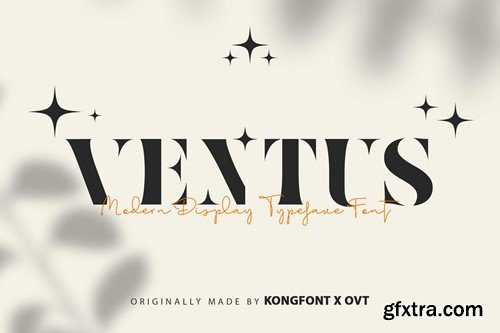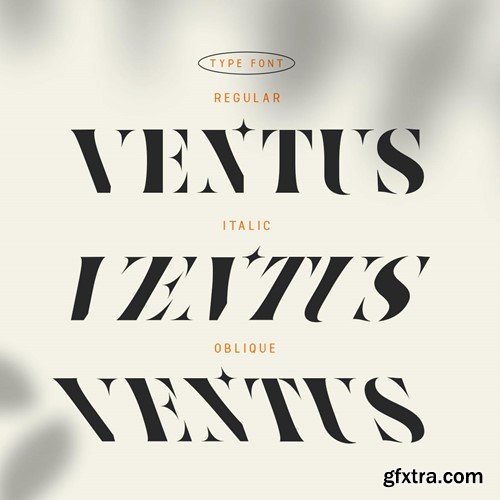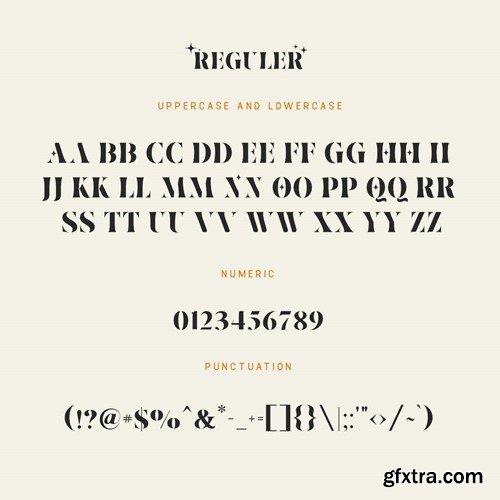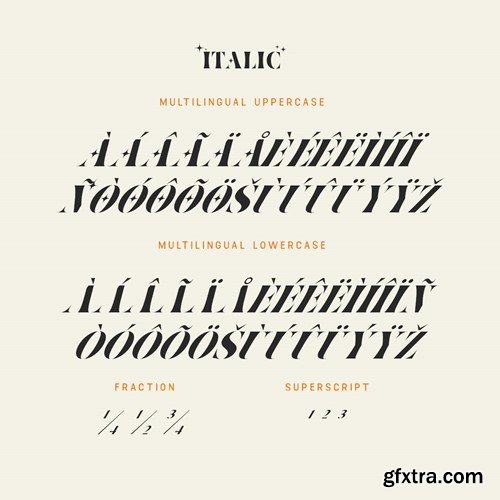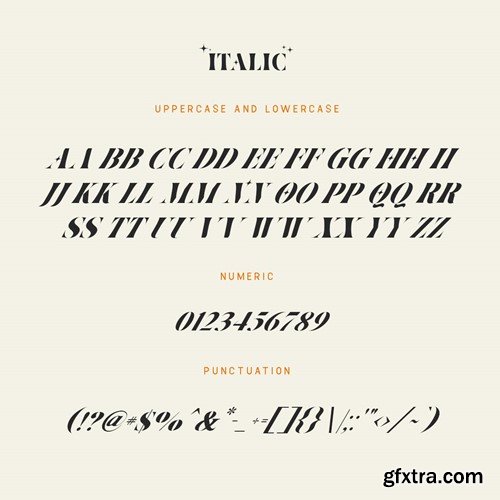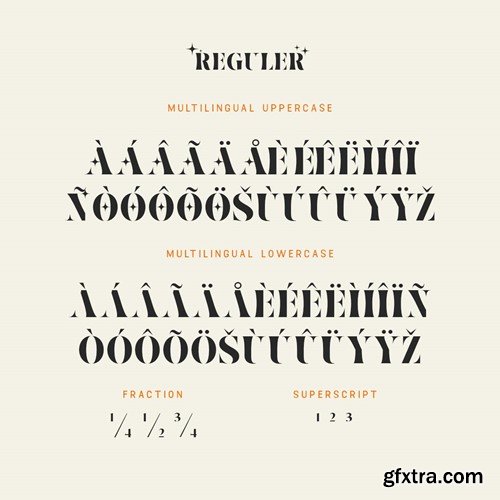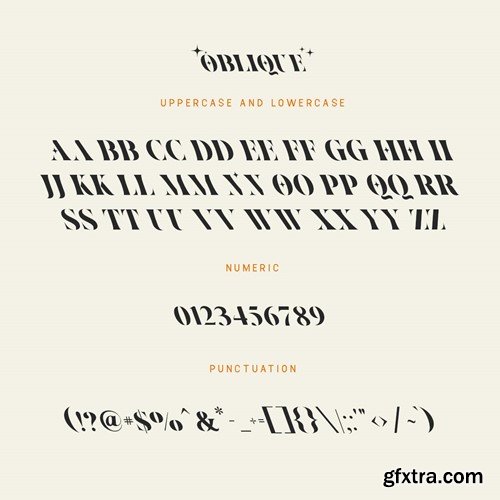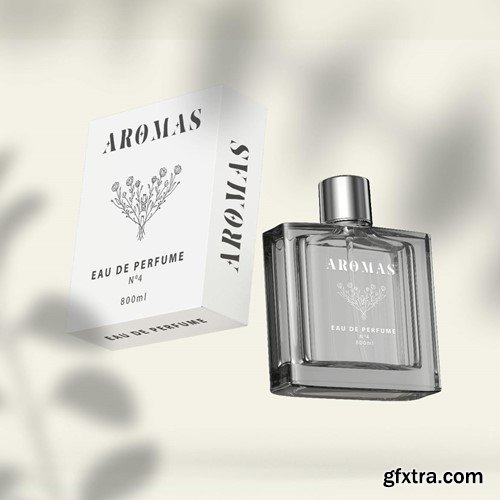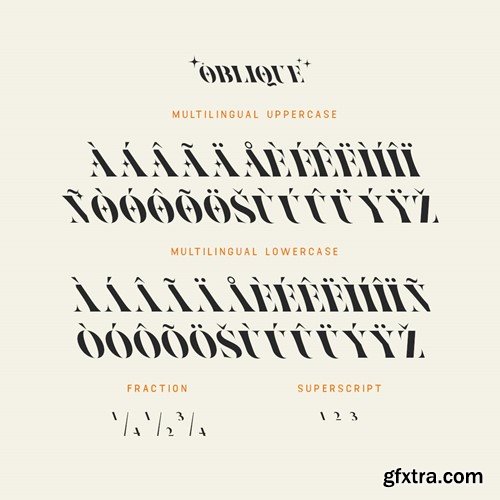
Introducing Ventus, a sleek and stylish modern display typeface font that adds a touch of contemporary sophistication to your projects. With its clean lines and geometric shapes, Ventus exudes elegance and professionalism, making it perfect for a wide range of design applications. Whether you're crafting eye-catching headlines, designing striking logos, or creating bold branding materials, Ventus offers versatility and impact. Its distinct character and modern aesthetic make it a standout choice for projects that demand attention. You will receive the font files in TTF, OTF, and WOFF formats With multiple weights, styles, and a full range of glyphs, Ventus provides flexibility and ease of use for designers of all levels. Elevate your designs and make a statement with Ventus, the ultimate modern display typeface font. Ventus is your go-to font for adding contemporary flair to any design project.